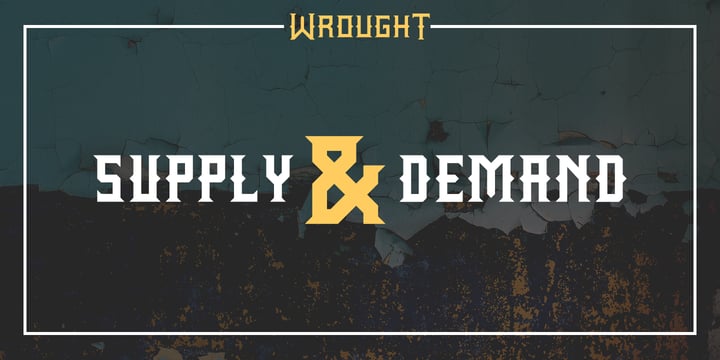
Wrought
by Jon Cartagena
The Wrought Font Family was designed by Jon Cartagena and published by Jon Cartagena. Wrought contains 4 styles and family package options. More about this family
Wrought is a bold geometric display font by Jon Cartagena. It's purpose is to give a rugged, heavy feeling to your designs. Wrought is available in four weights: Thin, Light, Regular, and Bold. Each character is carefully designed to be vertically aligned at the center. This gives Wrought a unique flair, while promoting a harmonious look through each word.
Designers: Jon Cartagena
Foundry: Jon Cartagena